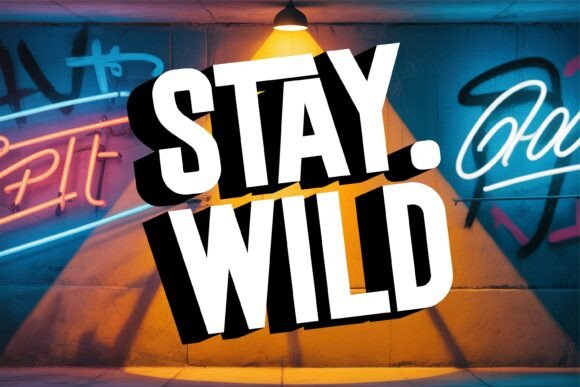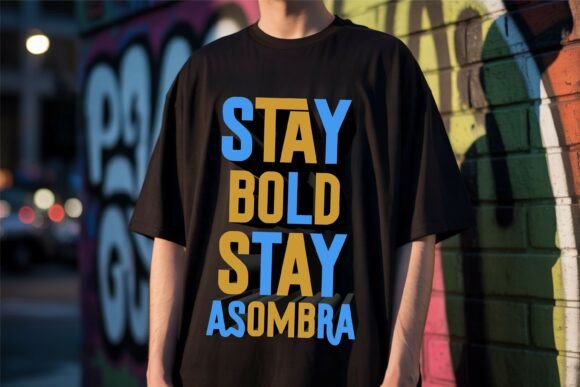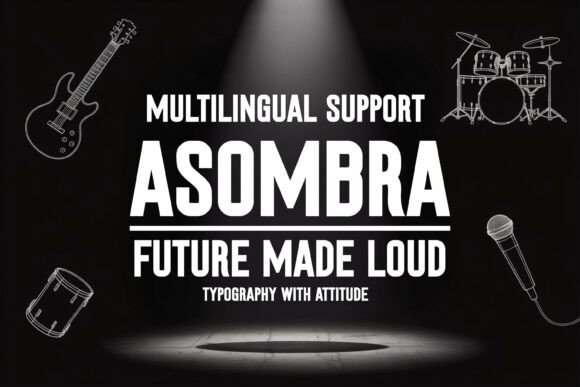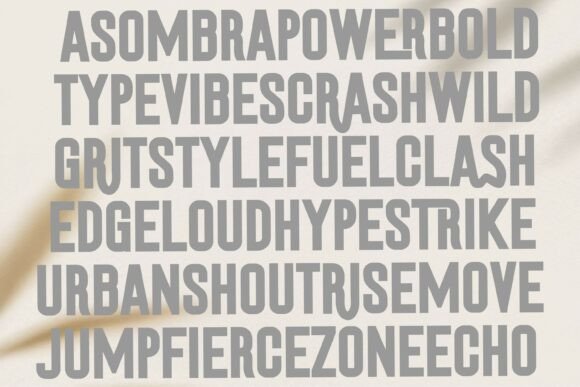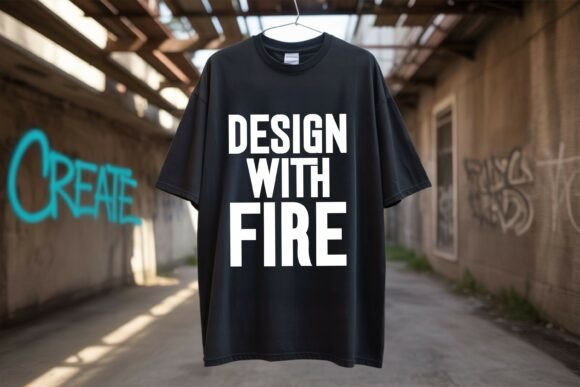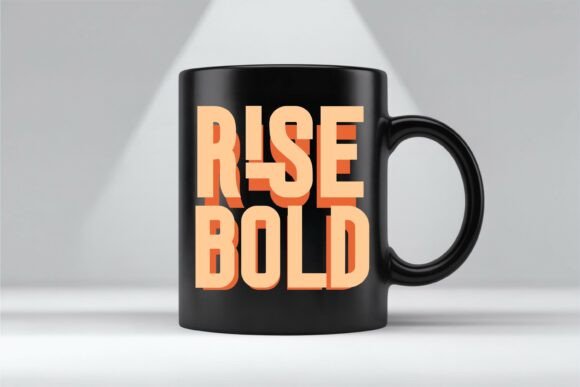
Unlock Your Creativity with the Bold Asombra Font
You know that moment when a spark of inspiration hits, and you envision the perfect design? For creatives, it’s like a rush of adrenaline that sets the wheels in motion. You grab your tools, fire up your computer, and get ready to bring your vision to life. And that’s exactly when the Asombra Font comes into play – a typographical sensation that’s guaranteed to elevate your projects and make them stand out.
This daring sans-serif font is not just about aesthetics; it’s about making a statement. With its tall, bold block letters, Asombra Font is the ultimate game-changer for designers seeking to add a confident energy to their work. Whether you’re crafting engaging classroom materials, designing logos, or creating eye-catching graphics, Asombra is your secret weapon. Its versatility and compatibility with popular design tools make it an indispensable asset in any creative’s toolkit.
- Font Family: Asombra is a sans-serif font family designed for display and text use.
- Size: Asombra font family includes 6 weights ranging from Thin to Black, with 6 corresponding italic styles.
- Resolution: Optimized for use at medium to high resolutions, making it suitable for digital applications and print materials.
- Unique Characteristics: Asombra features a geometric sans-serif design with a unique blend of modern and classic elements, making it versatile for various design applications.
Asombra Font Review
As a designer, I was excited to dive into the world of Asombra Font. Overall, I was pleased with the experience.
- ✨ Unique Style: Asombra Font has a distinct, hand-drawn feel that sets it apart from more traditional fonts.
- ✨ High-Quality Renditions: The font’s various weights and styles are well-executed and look great at different sizes.
- ✨ Extensive Character Set: Asombra Font has a comprehensive set of characters, including accented letters and symbols.
- ⚠️ Limited Font Variations: While the font has multiple weights, it lacks the extensive variation in font styles and sub-styles that some designers might prefer.
- ⚠️ Not Ideal for Body Text: The font’s unique style can be distracting when used for large blocks of text, making it better suited for titles and headlines.
Overall, I think Asombra Font is a great choice for designers looking for a distinctive, high-quality font. While it may have some limitations, its unique style and extensive character set make it a valuable addition to any design project.
Alternatives to Asombra Font
Merriweather is a classic serif font designed by Eben Sorkin. It’s a timeless choice for body text, especially in publications and books. Use it when you need a traditional, elegant look.
Merriweather is similar to Asombra in its classic feel, but it has a more traditional, formal look. While Asombra is more modern, Merriweather has a softer, more rounded appearance.
Lato is a modern sans-serif font designed by Łukasz Dziedzic. It’s a versatile font that works well for headings and body text. Use it when you need a clean, modern look.
Lato is different from Asombra in its sans-serif design, which makes it more suitable for digital interfaces. While Asombra has a unique, handwritten feel, Lato is more straightforward and easy to read.
Open Sans is a clean and modern sans-serif font designed by Steve Matteson. It’s a popular choice for digital interfaces and is highly legible. Use it when you need a clear, readable font.